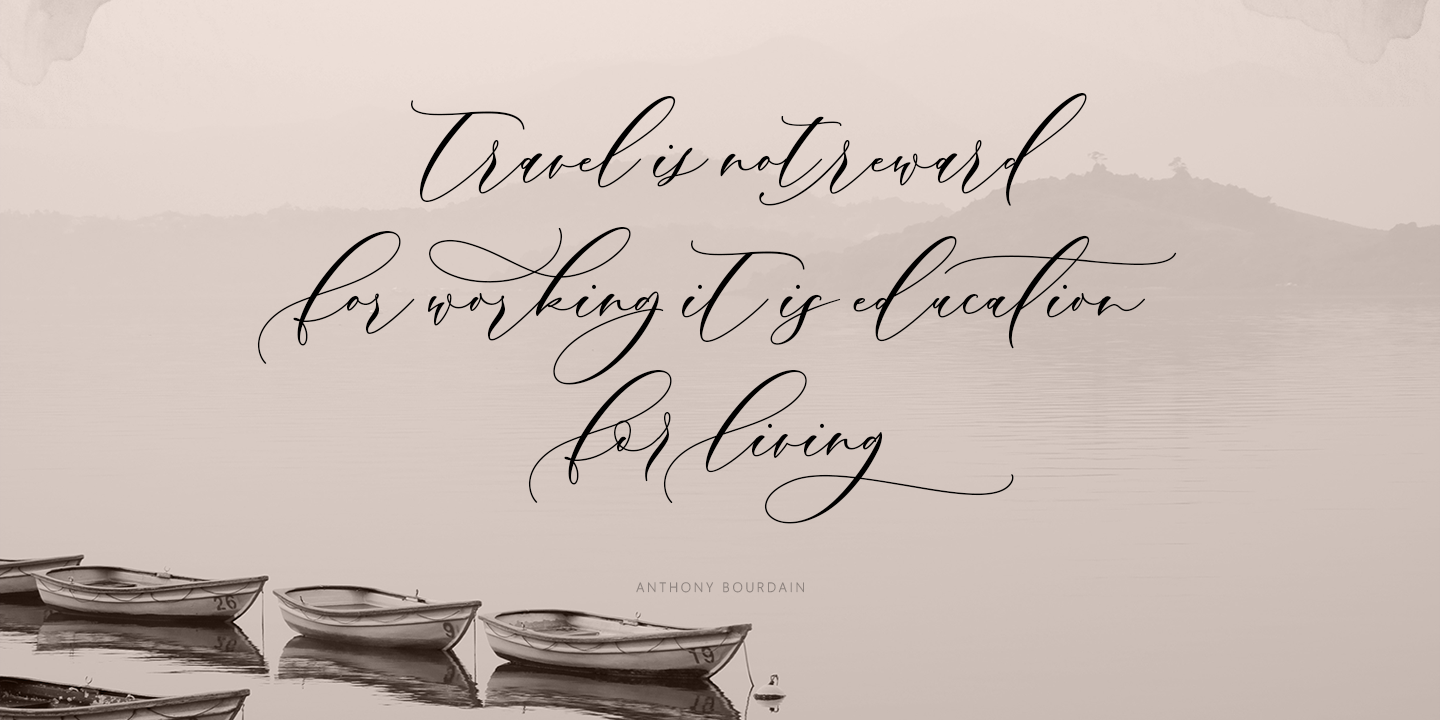
Dearly Rose Font is perfect for romantic wedding stationery, elegant floral boutiques, feminine lifestyle blogs, luxury beauty brands, vintage love letters, garden party invitations, bridal shower designs, rose garden signage, romantic restaurant branding, and delicate memorial tributes.
Dearly Rose Font is exciting because it blooms with tender romance and delicate beauty through graceful script letterforms that capture the essence of blooming roses and heartfelt devotion, making it perfect for brands celebrating love, femininity, and the timeless elegance of floral romance.
The Dearly Rose Font family includes regular script with romantic flourishes, rose-inspired ornaments, and delicate swash alternatives, providing designers with enchanting tools for creating typography that blossoms with genuine sentiment and floral grace.
When your project needs to express delicate romance and floral elegance, Dearly Rose Font Free Download offers the perfect typographic garden of romantic expression. This enchanting script typeface combines rose garden beauty with emotional depth, ensuring your designs resonate with audiences seeking authentic romance and feminine grace. The flowing letterforms and floral inspiration make this font an essential choice for wedding planners, floral designers, and any application where romantic love, natural beauty, and tender emotion are crucial for creating meaningful connections that bloom like roses in the garden of the heart, celebrating eternal love and feminine elegance.